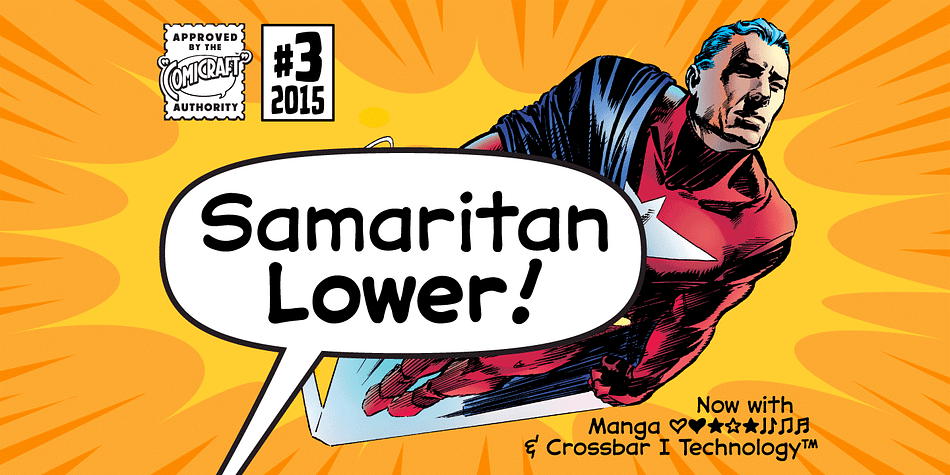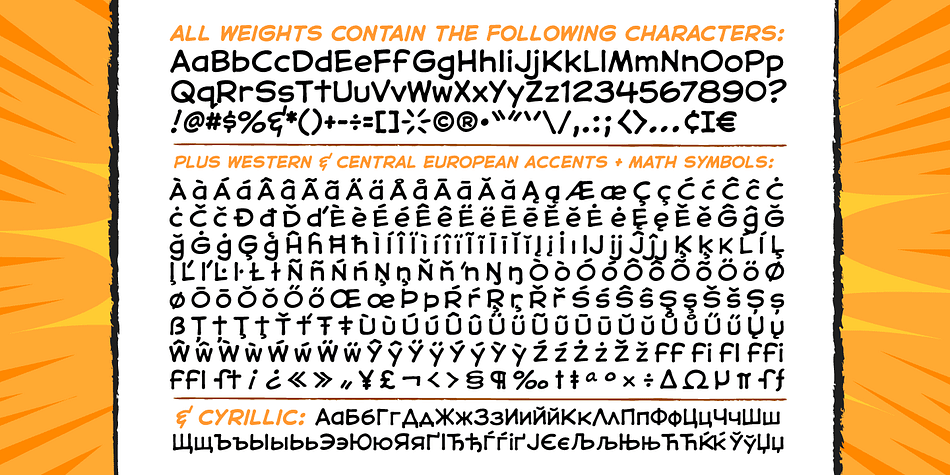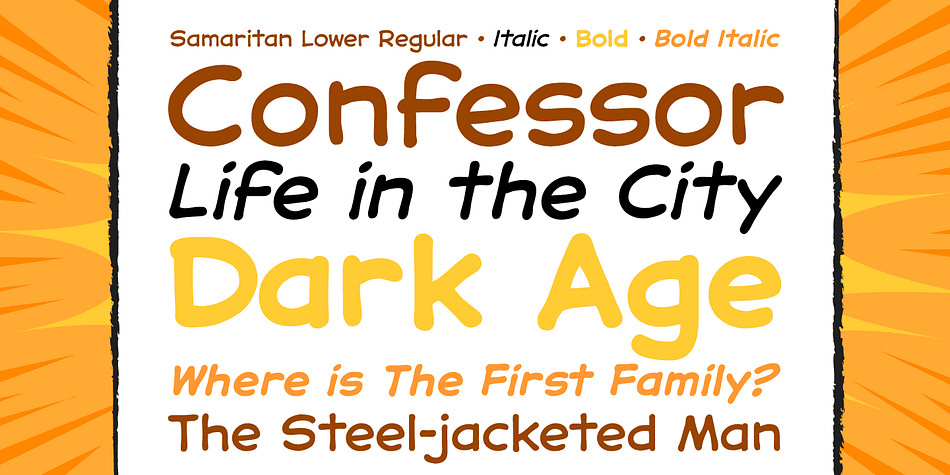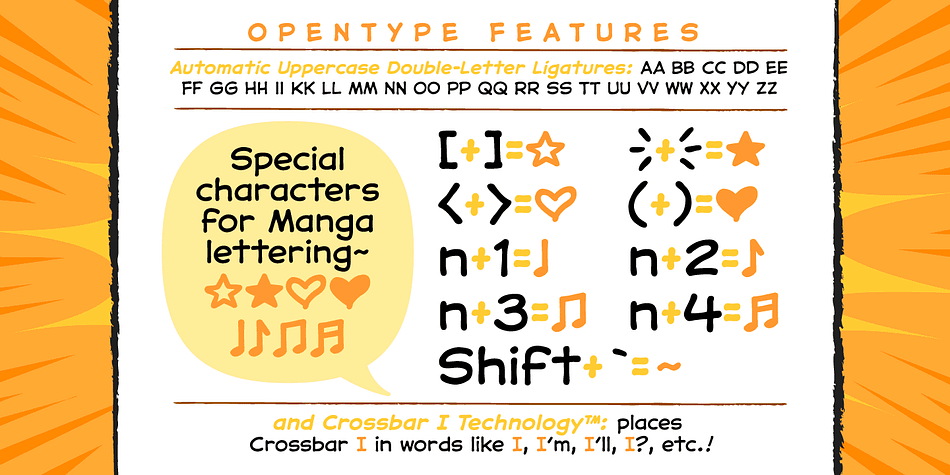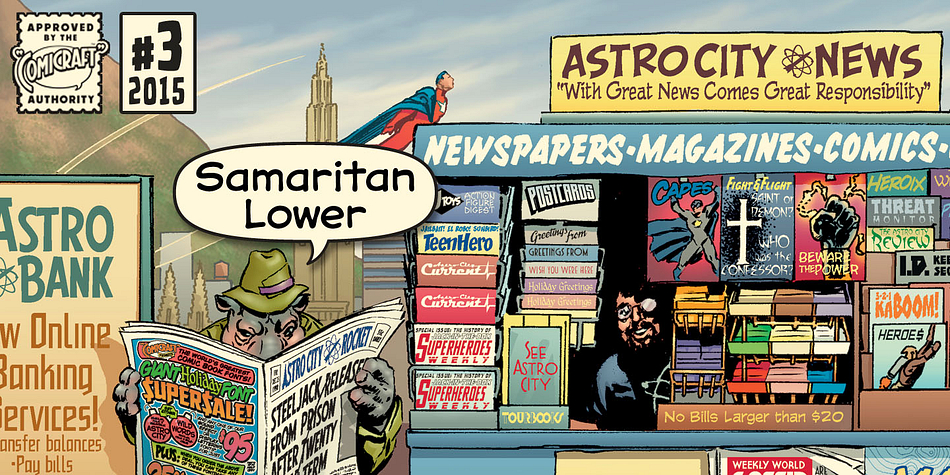
Designed by Richard Starkings, Samaritan Lower is a comic and hand display font family. This typeface has four styles and was published by Comicraft.
It’s another beautiful day in scenic Astro City, home of post modern gods and ordinary mortals alike. Look into the sky and perhaps you’ll get a glimpse of everyone’s favorite man of the hour, if not the man of tomorrow… SAMARITAN!
Four fonts (Regular, Italic, Bold & Bold Italic) with upper and lowercase characters. Includes Western European, Central European and Cyrillc characters.